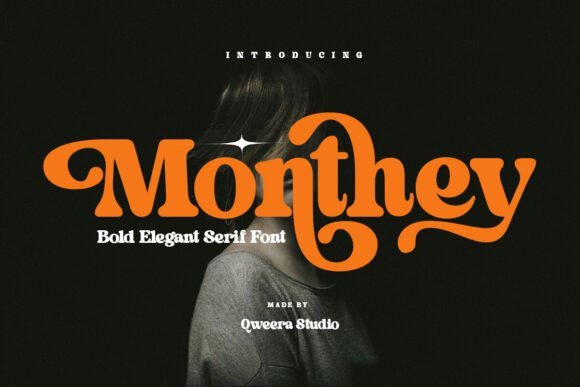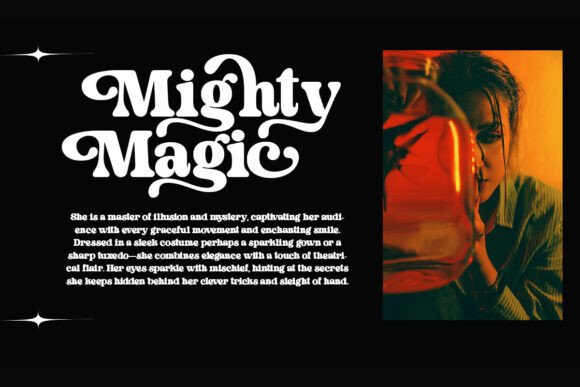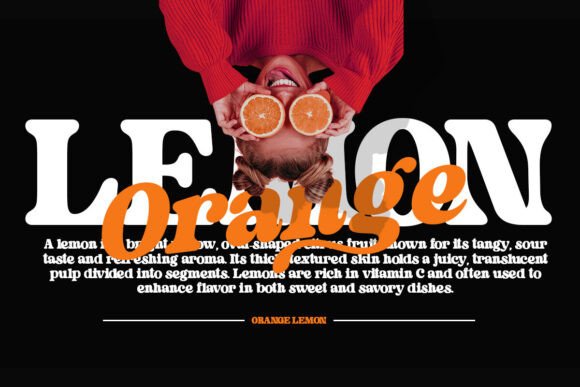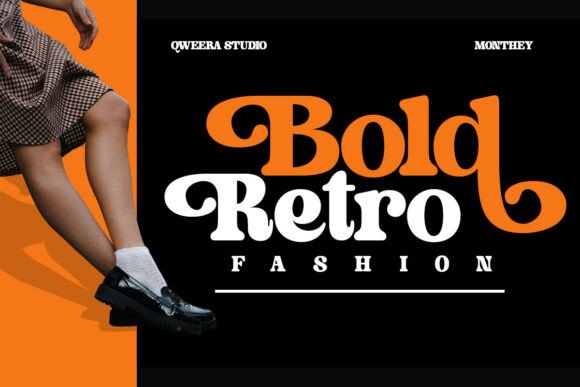
Monthey Font: Bold Serif Typography for Luxury Branding & Logos
About the Monthey Font
Introducing the Monthey Font, a beautifully crafted typeface designed to elevate your creative projects. Monthey is a commanding display serif that blends bold confidence with refined elegance. Featuring both regular and italic versions with stylistic alternates and ligatures, this typeface is expertly engineered for luxury branding, high-impact logos, premium packaging, and editorial designs that demand authority with sophistication.
Monthey excels in headlines, short impactful statements, and logo design where its bold strokes and elegant serifs command attention. It is equally effective for premium packaging and short-form editorial pieces requiring a sophisticated yet authoritative voice. Avoid using Monthey for body text or lengthy paragraphs; its strong character overwhelms readability in smaller sizes or extended use.
Consider pairing Monthey with a clean sans-serif like Montserrat for a contemporary feel, or a delicate script font such as Great Vibes for a touch of old-world charm. For a more modern and geometric approach, pairing it with a font like Bebas Neue can create a striking contrast.
Monthey projects an air of sophisticated confidence. Brands aiming for a luxurious, high-end image—think premium spirits, high-fashion apparel, or bespoke services—will find it a highly effective choice.